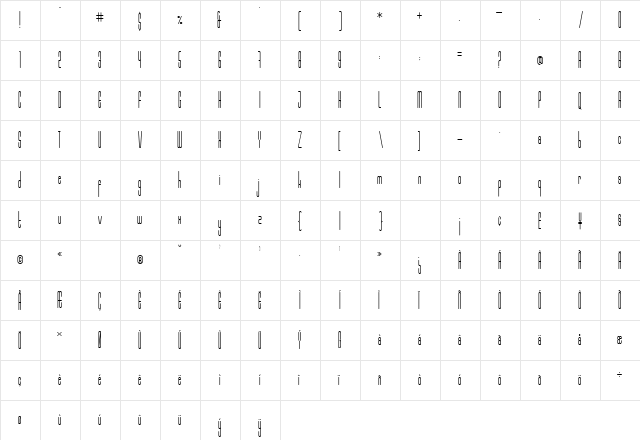
Marbellya Cond Regular
Regular · Namara Creative Studio Toni Setiawan | Namara Creative Studio ·
DesignerToni Setiawan | Namara Creative Studio
Design Context for Marbellya Cond Typeface
Marbellya Cond offers clean, dependable letterforms without strong stylistic allegiance, making it a practical choice for designers who need flexibility. The condensed width makes it efficient for tight spaces without sacrificing legibility.